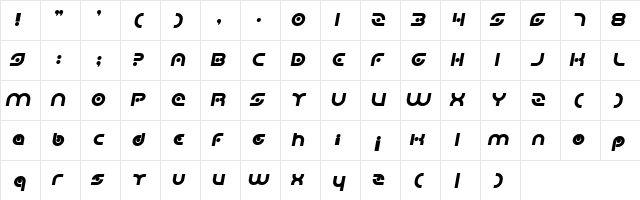
Planetary Orbiter Bold Italic
Design Context for Planetary Orbiter Typeface
Planetary Orbiter is a composed and adaptable typeface that performs quietly and consistently across a wide range of design contexts. Its italic angle brings a sense of urgency and motion to the letterforms. Its bold stroke weight gives it real presence on the page.
Pro Tip: Try Planetary Orbiter for annotation and caption copy alongside an upright companion — the contrast in angle creates a dynamic but ordered typographic system.